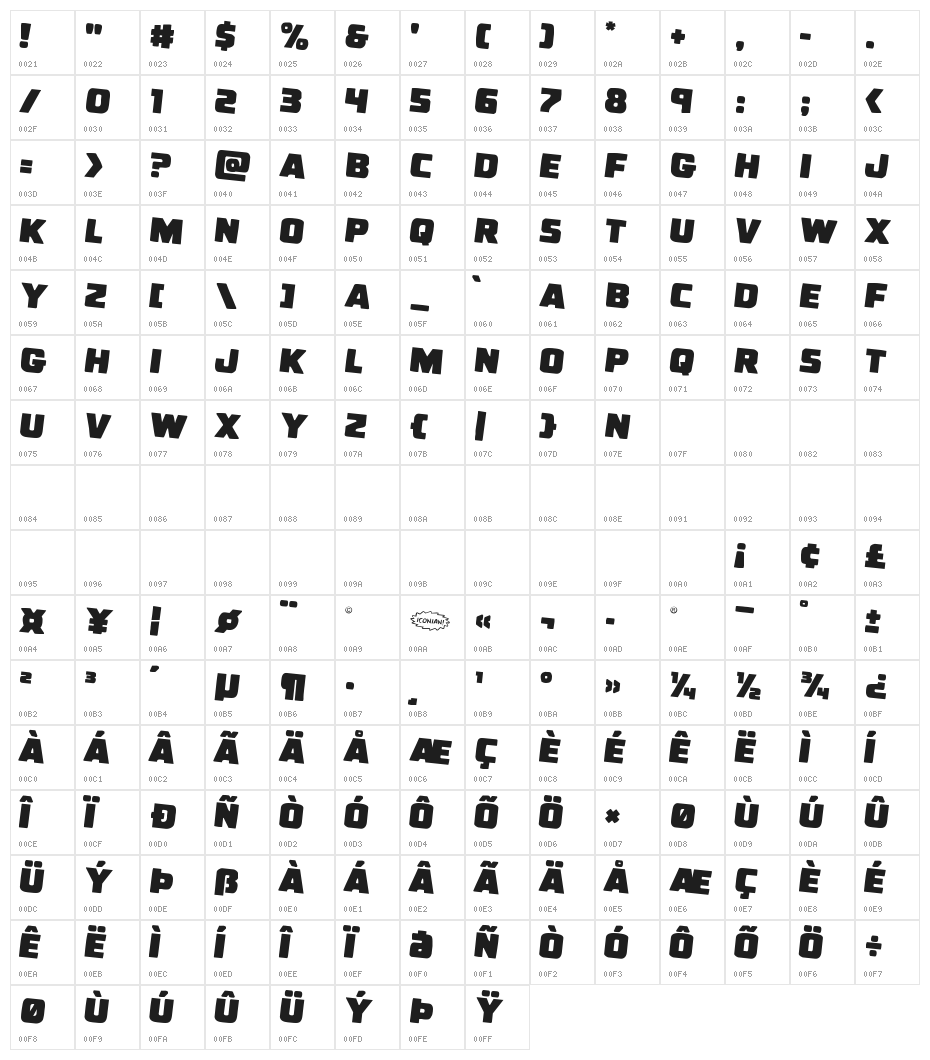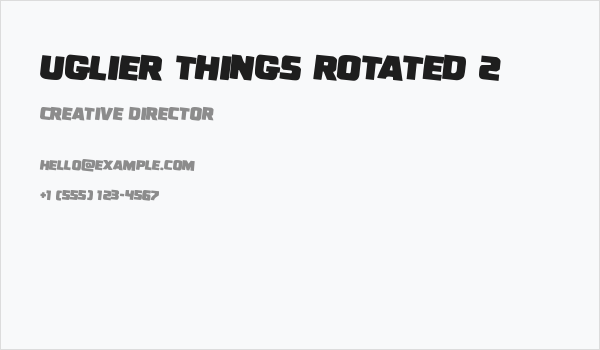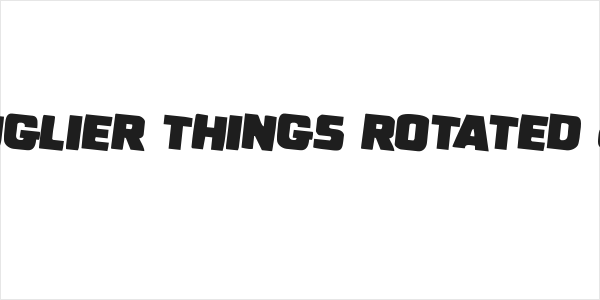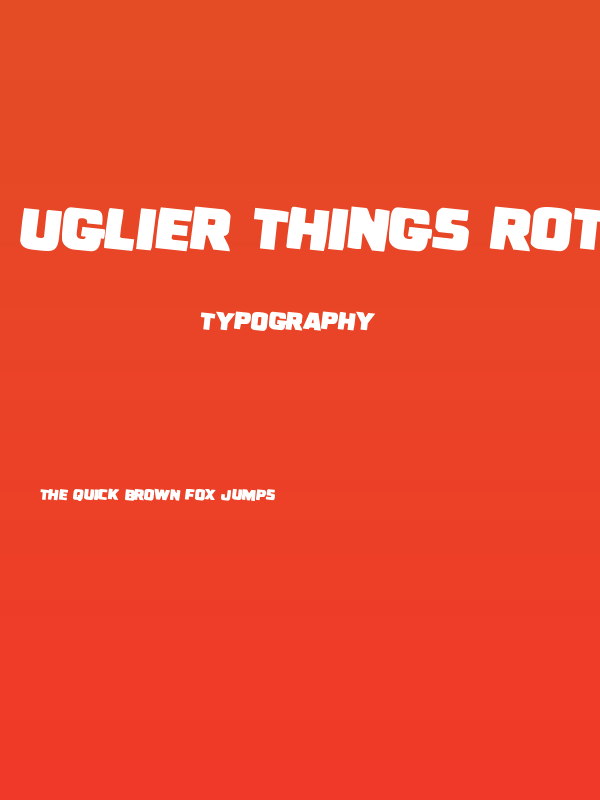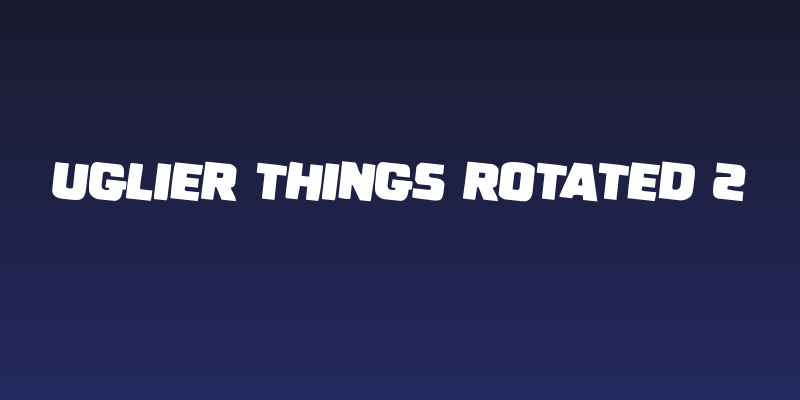
Uglier Things Rotated 2 Font
Uglier Things Rotated 2 Description
This bold and dynamic font features thick, blocky letters with a slight slant, giving it a sense of movement and energy. The characters are robust and impactful, making them ideal for grabbing attention. The uppercase and lowercase letters maintain a consistent style, with rounded edges that soften the overall appearance. Numbers and special characters are equally bold, ensuring uniformity across all text elements. The font's design is modern and slightly edgy, suitable for projects that require a strong visual presence.
| Proposed Projects | Ideal for posters, headlines, branding, and any design needing a bold statement. |